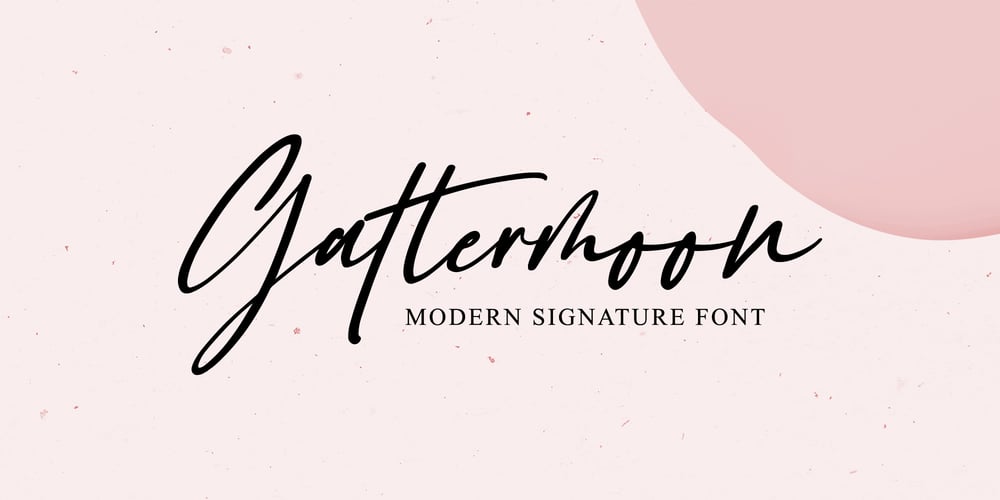
Gattermoon Handwritten Signature Font Font Family was designed by Rizal Aiyub and published by Fontysia. Gattermoon Handwritten Signature Font contains 1 styles and family package options. Gattermoon Script takes you away for romantic rendezvous with your love of signature handwritten scripts. Slightly slick, slightly classy, Gattermoon is a must-have for any signature handwritten font collection. Gattermoon adds a different nuance because of its different slope. It’s a little more cheerful and relaxed and tends to be more elegant. Perfect for: elegant branding, wedding stationery, romantic book cover designs, classy packaging, album covers, handwritten quotes, greeting cards, quirky social media posts and more.